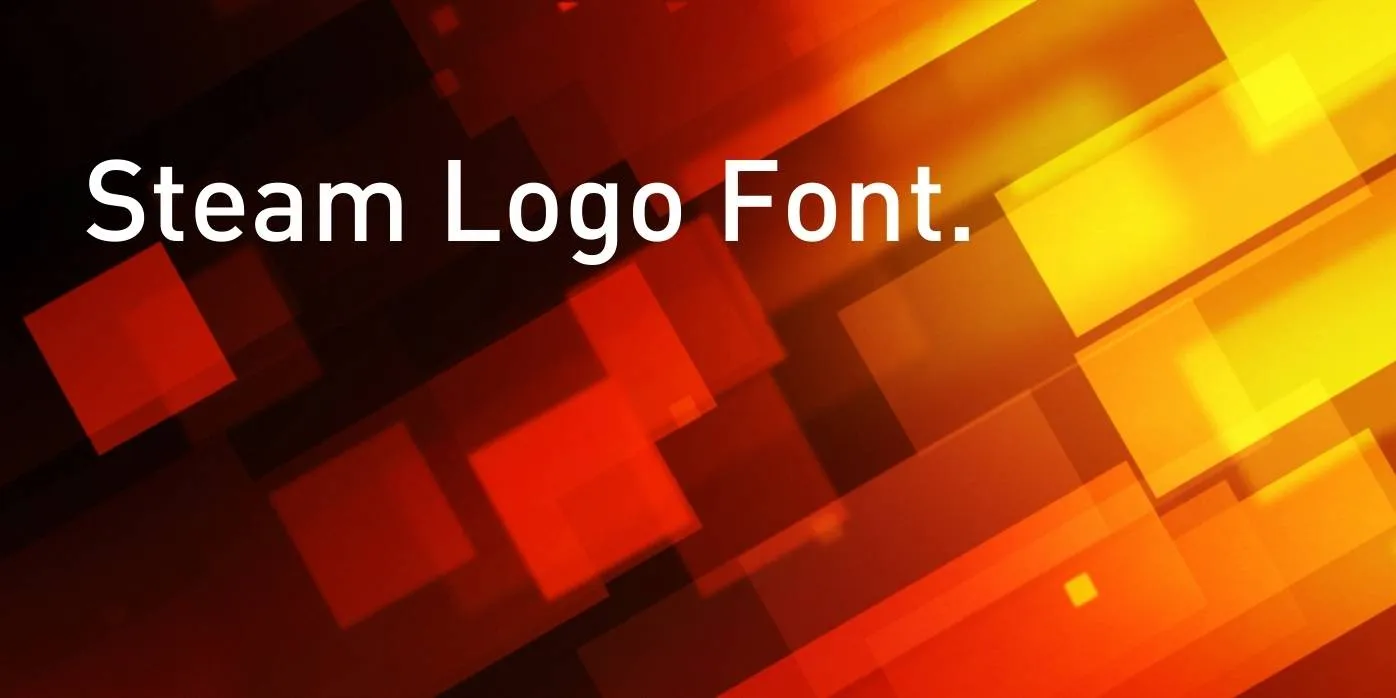
Steam Logo Font
Here we are introducing the most stylish and tremendous font family that is soo much popular in the designing industry named steam logo Font. This astonishing font belongs to the Sans-serif typeface. This awesome and attractive font was manufactured by a very famous and brilliant developer named Albert-Jan Pool. It was released in the year 1995.
This classic internet-based font was introduced by the famous Valve Corporation. This cute and simple font is used for the logo of internet-based plans. That is the reason for the uniqueness and popularity of this font family. FF Din OT Bold Font is similar to this awesome typeface and used for the same logo designs purposes.
This fantastic font is available in unique and popular styles and comes in extraordinary Glyphs. It’s special increase its fame in various designing fields. Some of its famous characters are symbols, numerals, and other different upercase or lowercase. It is most suitable for various types of titles.